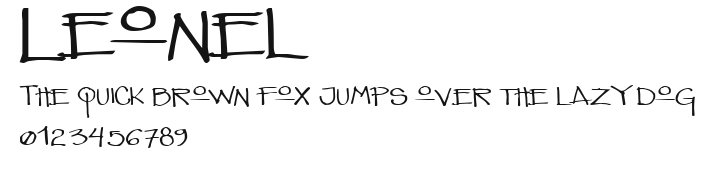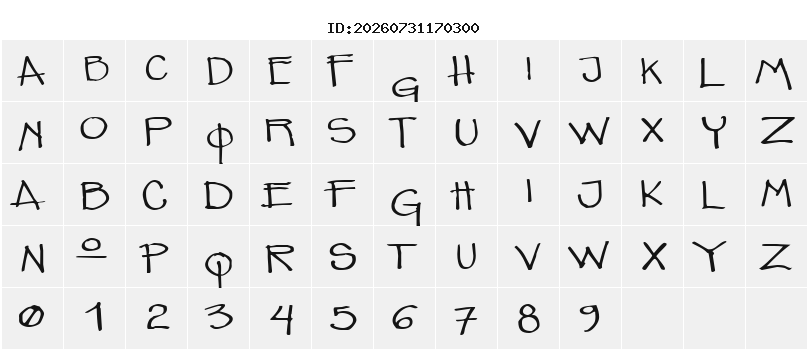
Leonel Preview
• Font Name: Leonel
• Full Font Name: Leonel
About Leonel.ttf
Leonel.ttf is a modern, elegant sans-serif font designed for ultimate readability and visual harmony. Perfect for branding, headlines, web design, and print materials.